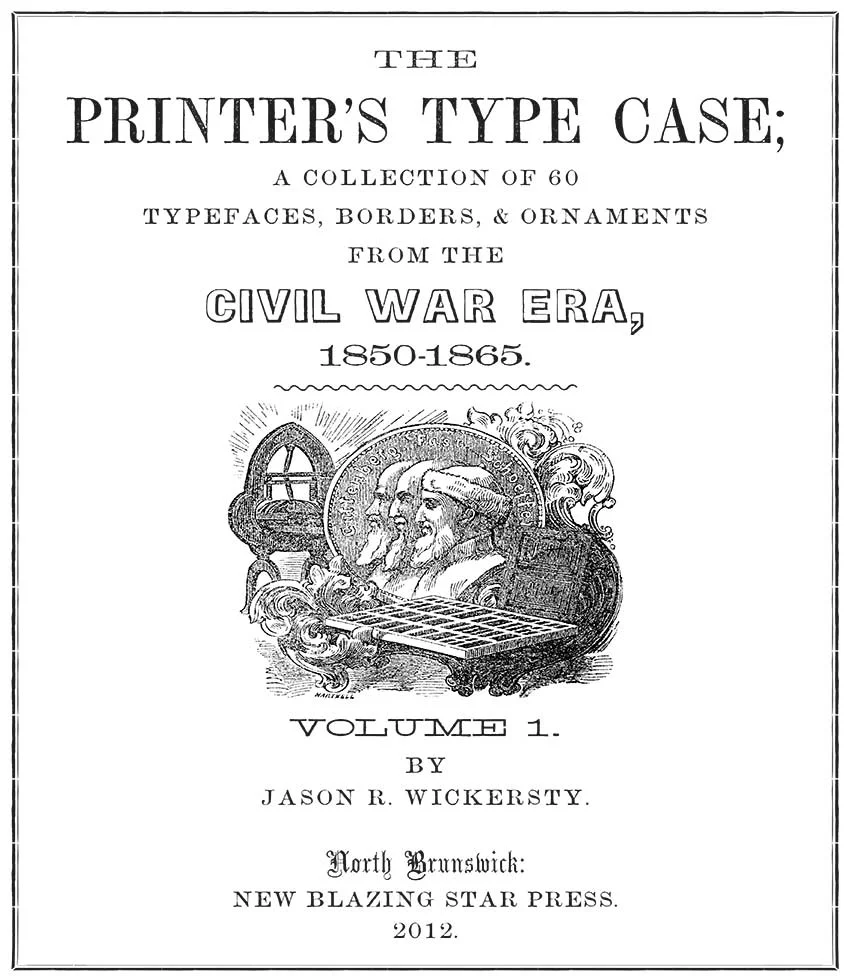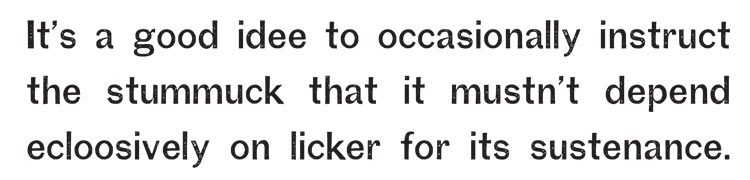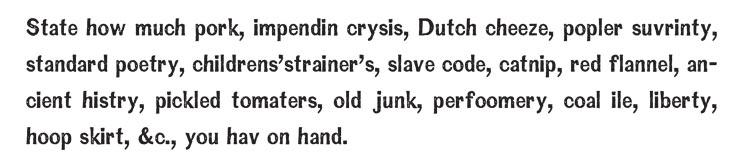
Fonts of the Civil War Era - Volume I
The first volume in the Printer’s Type Case series is the culmination of three years of research into the typography of the Civil War era, and features 60 of the most common fonts, ornaments, and borders used between the years 1850 and 1865. Every character has been scanned from the pages of original books and documents printed between 1848 and 1867 gathered from private collections as well as the Library of Congress.
Below are examples of the fonts from 'The Printer's Type Case, Volume 1' in action. Since they were scanned directly from the pages of original 150 year-old documents, the letters show imperfections common to letterpress printing. Additionally, like their original counterparts, some fonts feature only uppercase letters and may not include numerals.
Book - Uppercase: Yes Lowercase:Yes Numerals: Yes
Book Black - Uppercase: Yes Lowercase:Yes Numerals: Yes
Book Italic - Uppercase: Yes Lowercase:Yes Numerals: Yes
Baldinsville - Uppercase: Yes Lowercase: No Numerals: No
Bermuda Hundred - Uppercase: Yes Lowercase: No Numerals: No
Boucher - Uppercase: Yes Lowercase: Yes Numerals: Yes
Boucher Ogee - Uppercase: Yes Lowercase: No Numerals: No
Buntline - Uppercase: Yes Lowercase: Yes Numerals: Yes
Carnival of Treason - Uppercase: Yes Lowercase: No Numerals: No
Chimborazo - Uppercase: Yes Lowercase: No Numerals: No
Elzevir - Uppercase: Yes Lowercase: No Numerals: Yes
Firth and Pond - Uppercase: Yes Lowercase: No Numerals: Yes
Foilhommerum Black - Uppercase: Yes Lowercase: Yes Numerals: No
Foilhommerum Hollow - Uppercase: Yes Lowercase: Yes Numerals: No
Full Chisel - Uppercase: Yes Lowercase: Yes Numerals: Yes
Funkstown - Uppercase: Yes Lowercase: Yes Numerals: Yes
The Liberator - Uppercase: Yes Lowercase: No Numerals: No
Lincoln's Toothpick - Uppercase: Yes Lowercase: No Numerals: No
The London Charivari - Uppercase: Yes Lowercase: No Numerals: No
The Lounger - Uppercase: Yes Lowercase: No Numerals: No
Madisonian - Uppercase: Yes Lowercase: Yes Numerals: Yes
Memphremagog - Uppercase: Yes Lowercase: No Numerals: Yes
The Nondescript - Uppercase: Yes Lowercase: Yes Numerals: Yes
Pioneer Corps - Uppercase: Yes Lowercase: No Numerals: No
Rail Splitter - Uppercase: Yes Lowercase: Yes Numerals: No
Rebellion Record - Uppercase: Yes Lowercase: No Numerals: No
Sebastopol Breakdown - Uppercase: Yes Lowercase: No Numerals: No
The Silver Sunbeam - Uppercase: Yes Lowercase: No Numerals: No
Sneden - Uppercase: Yes Lowercase: Yes Numerals: Yes
Sneden Reduced - Uppercase: Yes Lowercase: Yes Numerals: Yes
Solferino - Uppercase: Yes Lowercase: No Numerals: Yes
The Striped Pig - Uppercase: Yes Lowercase: No Numerals: No
Swampoodle Ruins - Uppercase: Yes Lowercase: No Numerals: No
Swampoodle Ruins Hollow - Uppercase: Yes Lowercase: No Numerals: No
Tarrant's Preparation - Uppercase: Yes Lowercase: No Numerals: No
Title Page Condensed - Uppercase: Yes Lowercase: No Numerals: Yes
Tredegar - Uppercase: Yes Lowercase: Yes Numerals: Yes
Tredegar Condensed - Uppercase: Yes Lowercase: Yes Numerals: Yes
Tredegar Extra Condensed
Tredegar Italic - Uppercase: Yes Lowercase: Yes Numerals: Yes
Tremenjis - Uppercase: Yes Lowercase: Yes Numerals: Yes
Union Cheese - Uppercase: Yes Lowercase: Yes Numerals: Yes
Vredenburg - Uppercase: Yes Lowercase: No Numerals: No
Borders
Acorn Border
Constantia Border
Cordobello Border
Eagle Border
Frado Border
Line Border No. 1
Line Border No. 2
Line Border No. 3
Line Border No. 4
Radzimir Border
Ornaments
Peterson's 1855 Charades
Pointing Hands
Frames, Flourishes, and Dashes
Brass Circles
Brass Dashes
Brass Frames
Brass Ovals
Typographical Flourishes